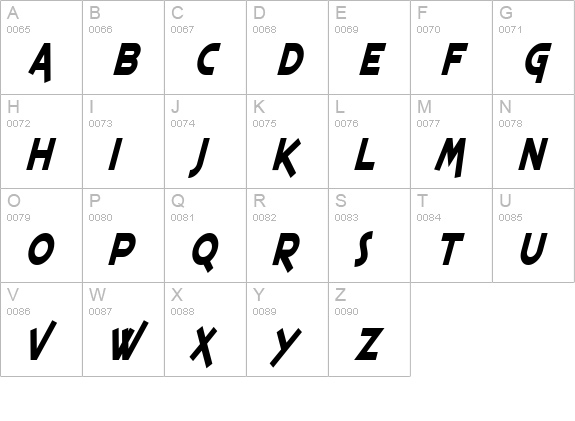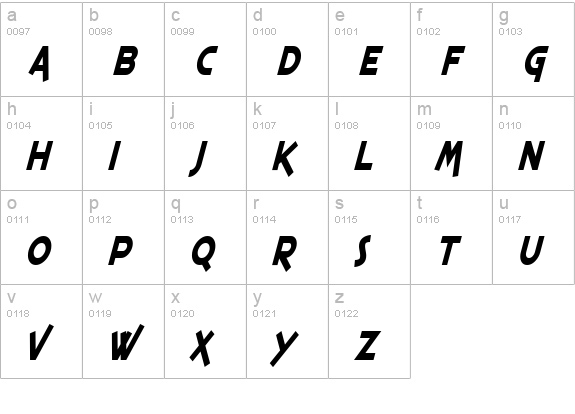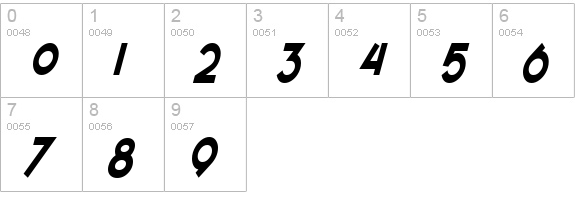
SF Espresso Shack Condensed Bold Italic Font Details
SF Espresso Shack Condensed Bold Italic is a strong, high-contrast, condensed-width, italic variant in the SF typeface family \xE2\x80\x94 well suited to headlines, attention-grabbing titles, and strong calls-to-action.
Introducing SF Espresso Shack Condensed Bold Italic font, a dynamic and visually striking typeface that exudes a sense of boldness and sophistication. This font is perfect for adding an extra touch of style to any design project, whether it be for print or digital media. With its condensed and bold design, SF Espresso Shack Condensed Bold Italic stands out from the crowd, commanding attention and making a lasting impression. Its sleek and modern appearance makes it ideal for headlines, titles, and branding materials. The italicized slant of this font adds a touch of elegance and flair, bringing a sense of movement and energy to your text. Whether you're designing a website, creating a poster, or crafting a logo, SF Espresso Shack Condensed Bold Italic will elevate your design to new heights. One of the best features of SF Espresso Shack Condensed Bold Italic is that it is freely available to download at FontsMarket.com. This means that you can effortlessly incorporate this stunning font into your projects without any added cost. Its accessibility allows designers, creatives, and enthusiasts to explore their imagination, expressing their unique vision without limitations. The versatility of SF Espresso Shack Condensed Bold Italic is another noteworthy aspect. It can seamlessly adapt to a wide range of design styles, from sleek and modern to vintage and retro. Its bold and condensed nature ensures legibility, even at smaller sizes, making it an excellent choice for body text as well. Get ready to enhance your designs with SF Espresso Shack Condensed Bold Italic. Download it for free at FontsMarket.com and experience the power and elegance this font brings to your creative endeavors. Elevate your typography to new heights with this bold and captivating typeface that is sure to leave a lasting impression on your audience.